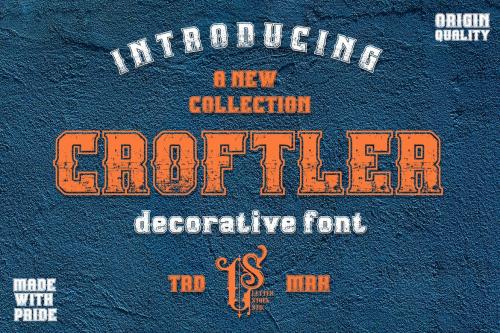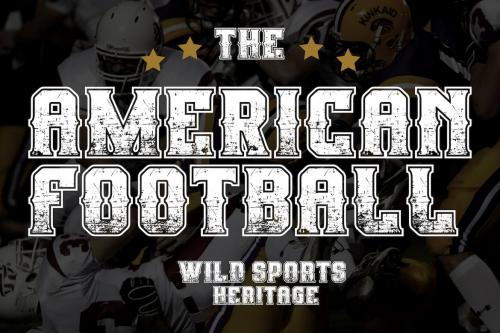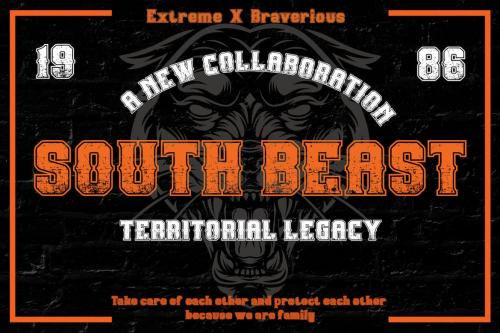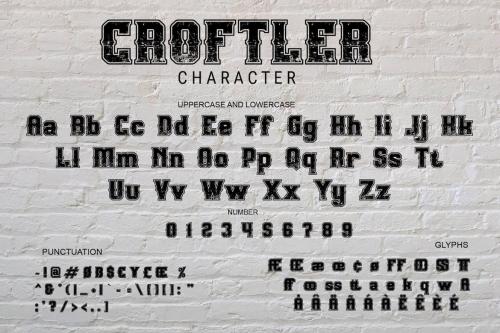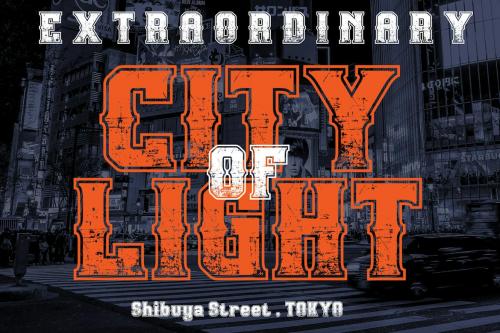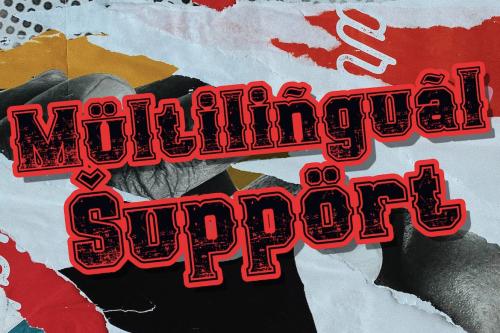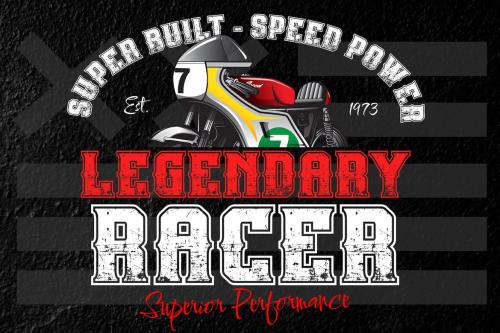
This pair was inspired by old motorcycle poster design that i saw on some gellery, It was crafted by hand specially to add natural handmade feeling in its brand identity than i make it clean with pentool.
We add some rough to make it retro feel, this font is bold so it can look strong if you use it for branding or even title for your retro poster design.
Croftler font has 201 character set included
Walkingblue Font is very good looking in retro rough logotype, labels, t-shirt prints, product packaging, invitations, advertising and others.
Multilingual support (Western European characters).